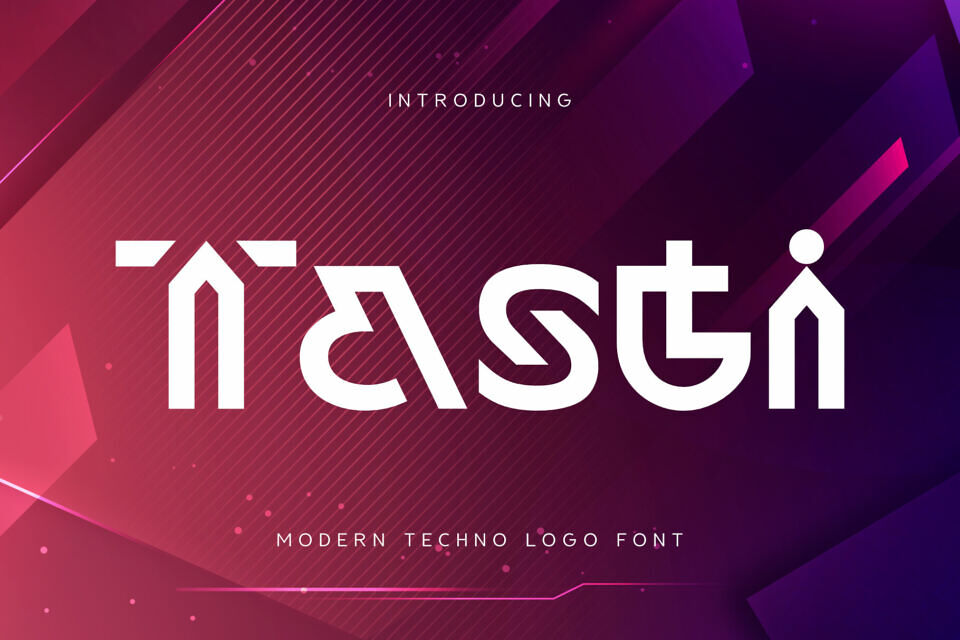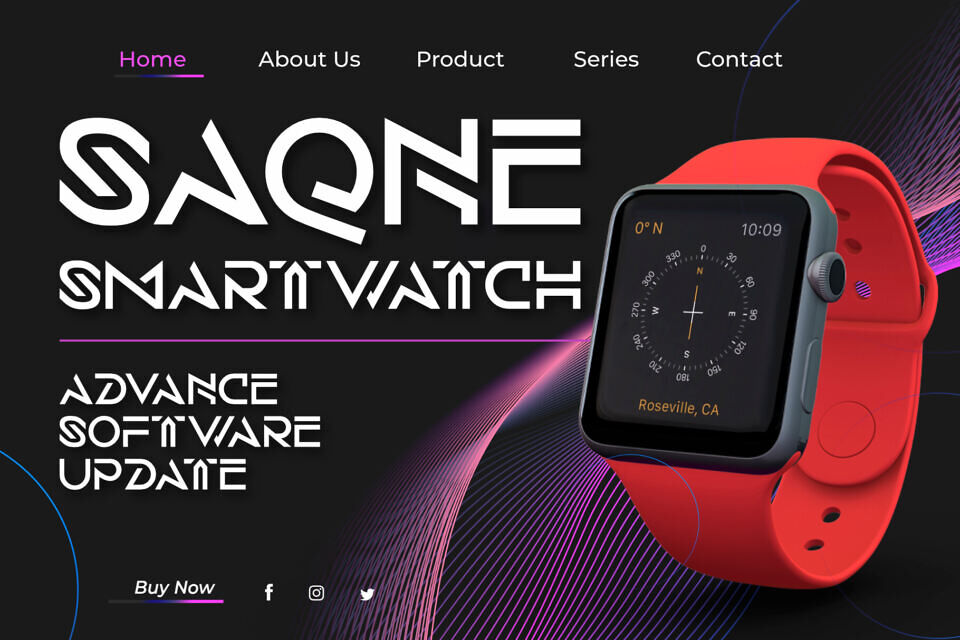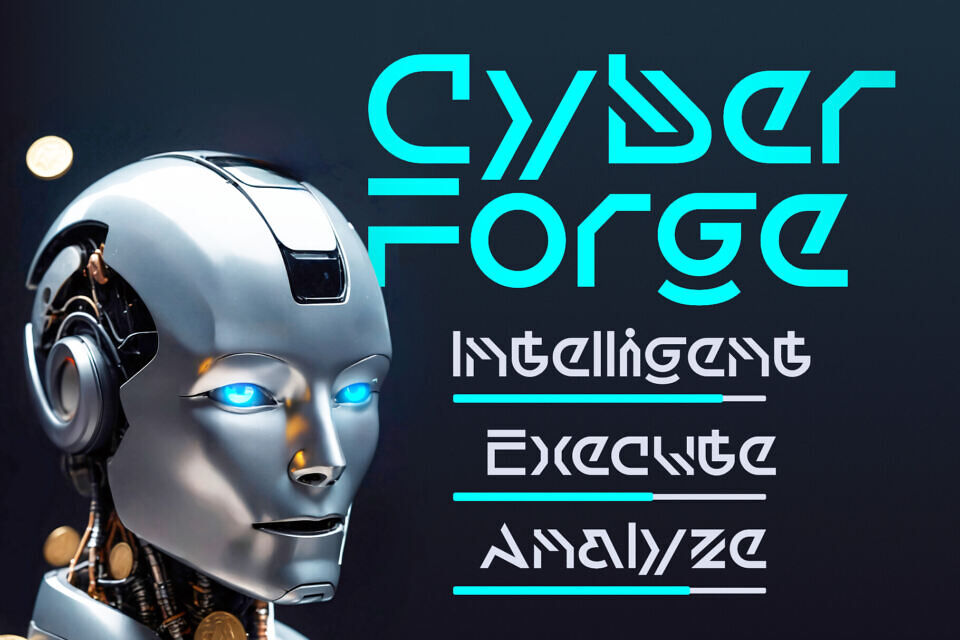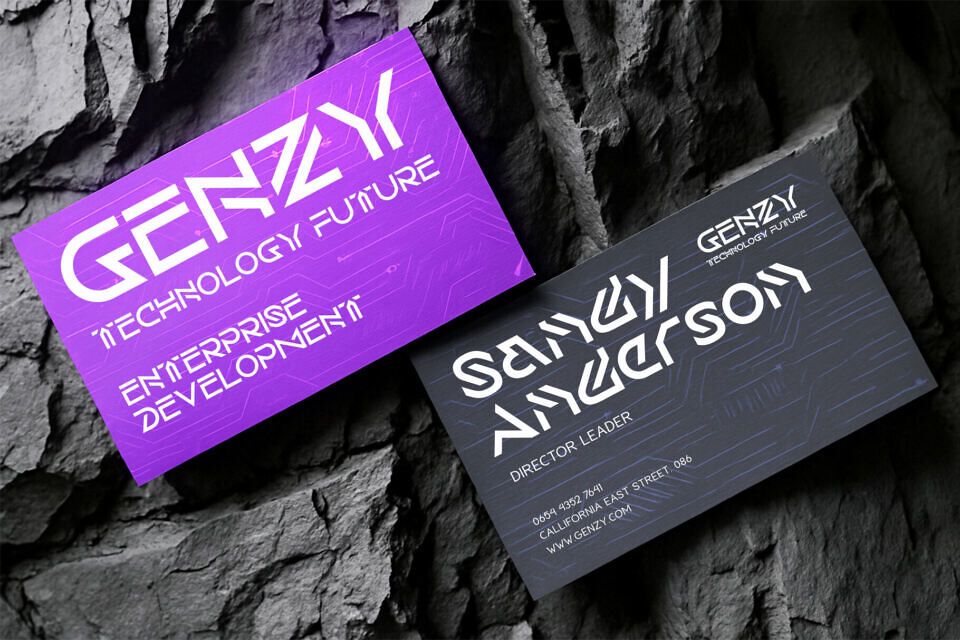
Tasti Font
Tasti is a Modern Techno typeface designed for standout branding in the tech world. With sharp geometric shapes and sleek, angular lines, Tasti captures the spirit of innovation—perfect for logos, digital products, and sci-fi inspired visuals.
Created with modern technology and cyber aesthetics in mind, Tasti is your go-to font for tech startups, esports teams, electronic music posters, and anything that needs a high-impact, next-gen look. Its minimalist yet striking design makes it ideal for UI/UX layouts, robotics themes, AI interfaces, and modern gaming titles.